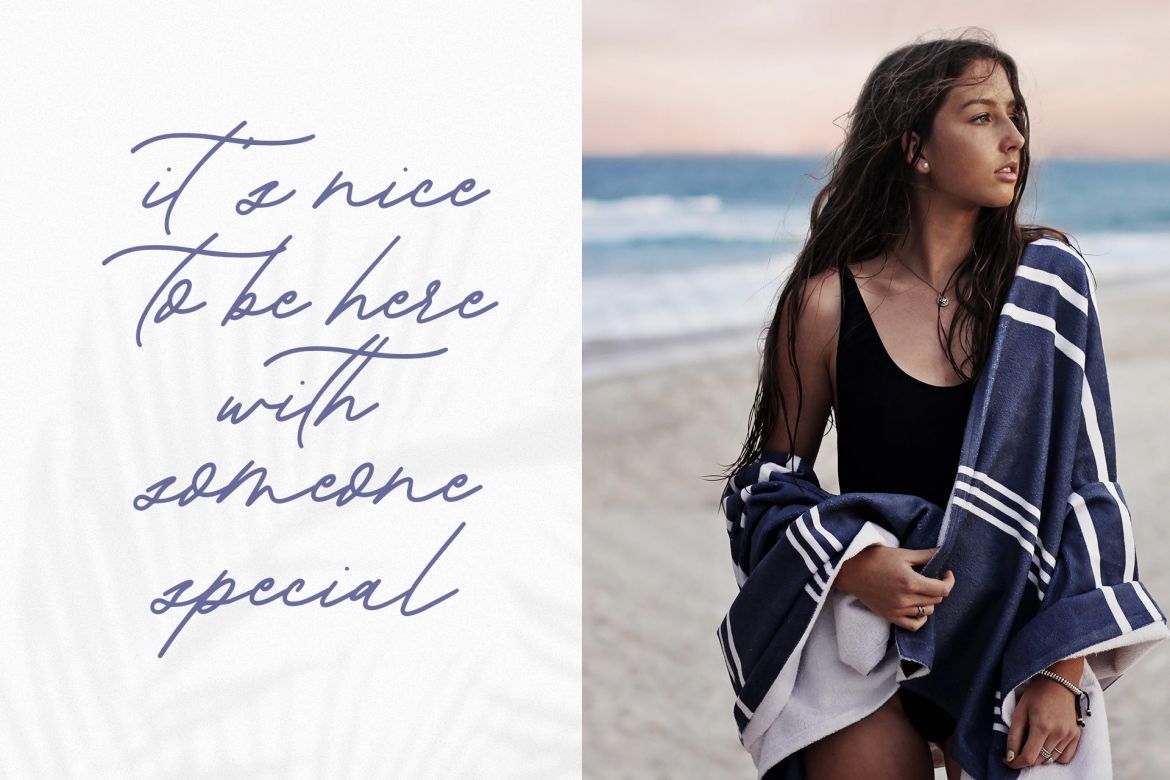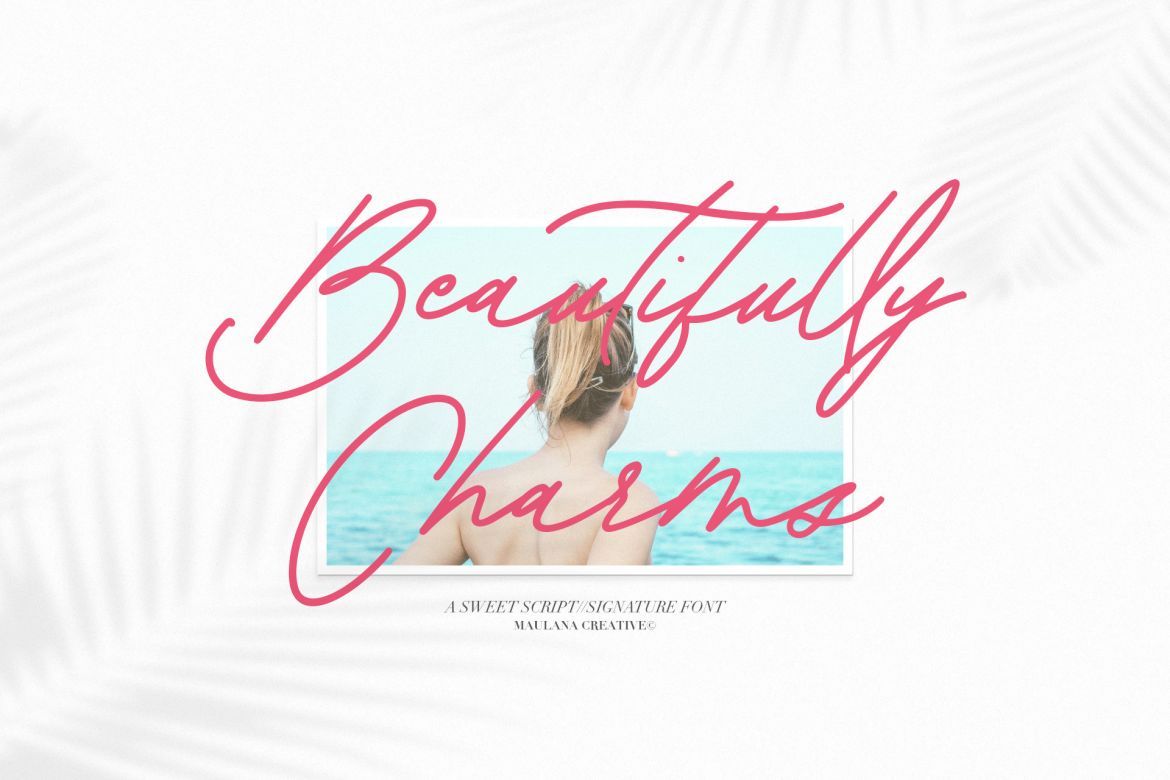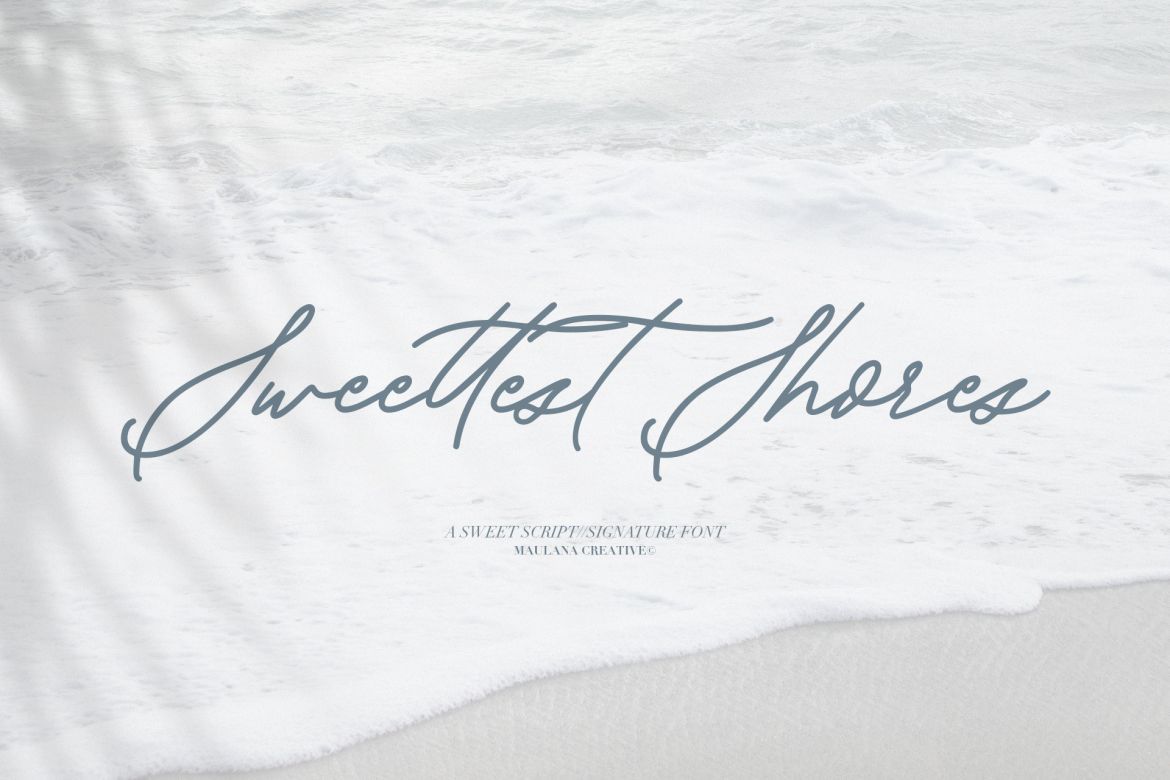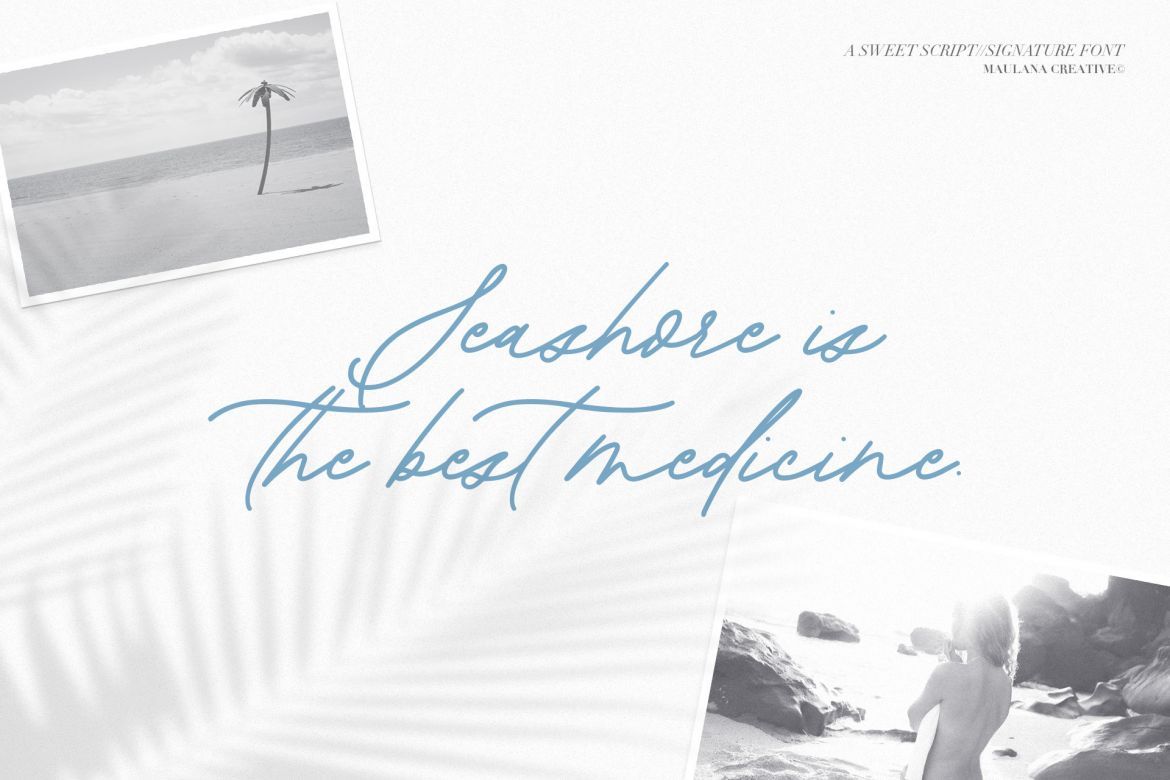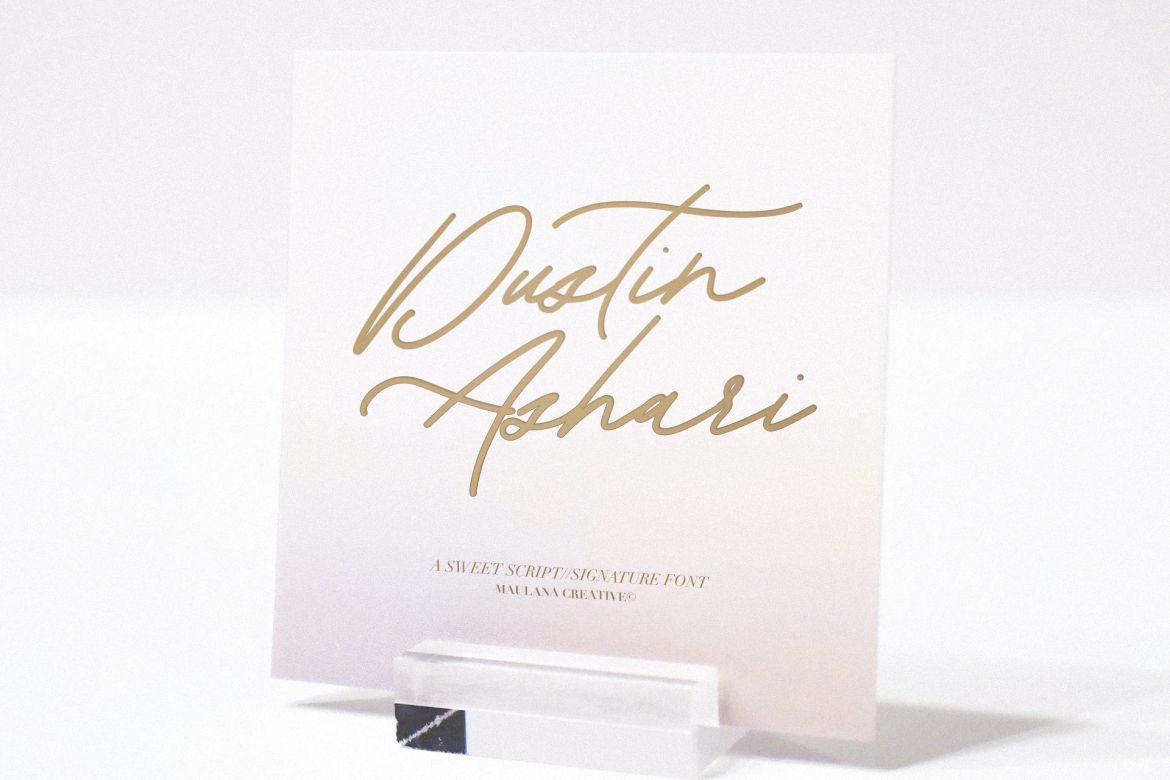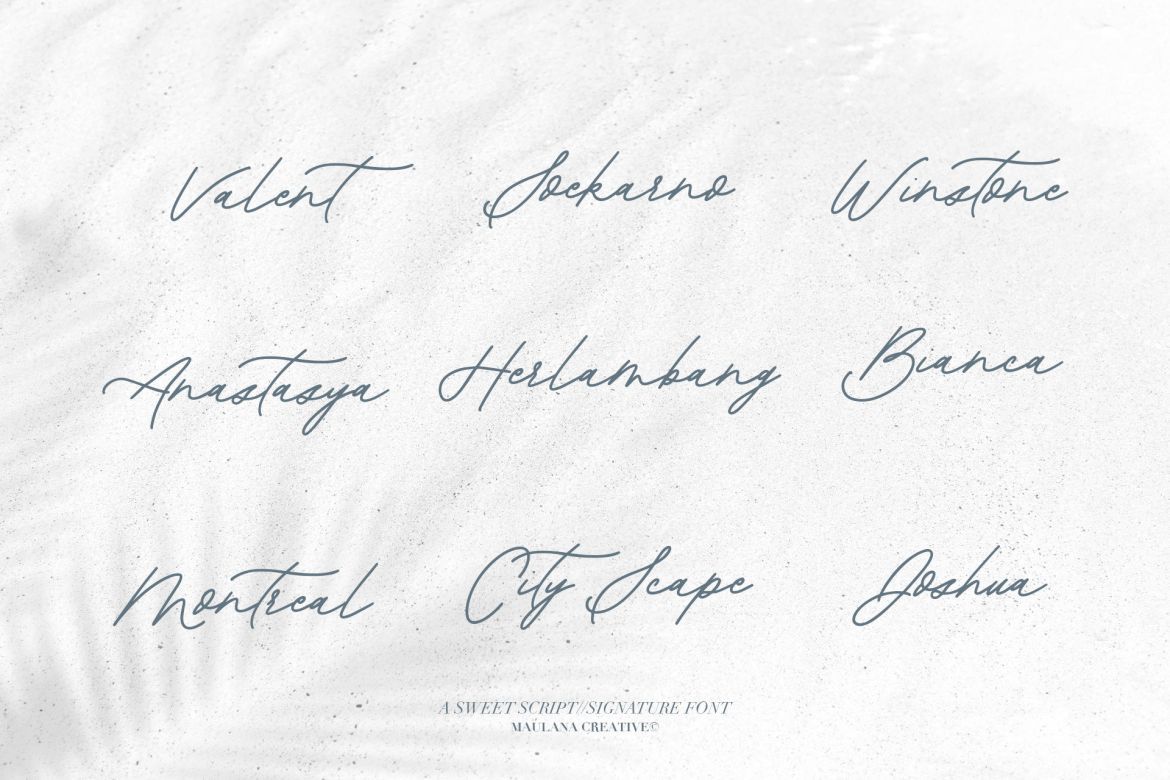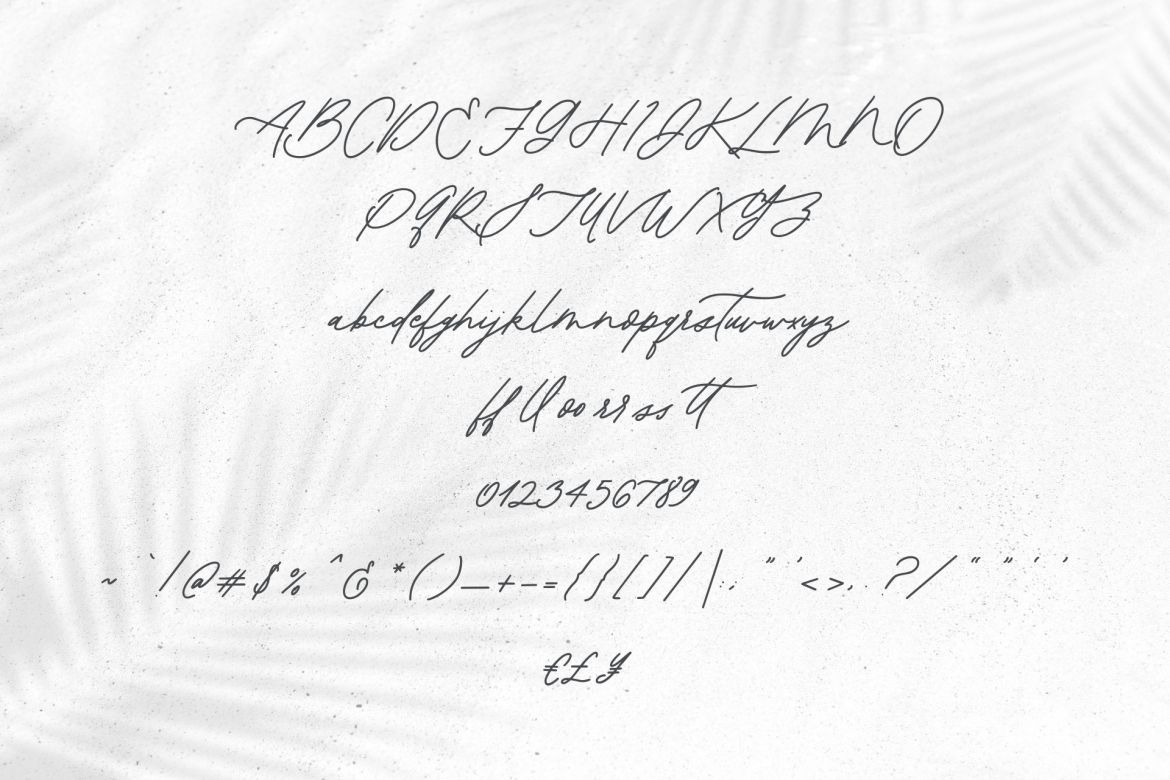
Sweetshore Casual Script Font
Give your designs an authentic handcrafted feel. "Sweetshore" is perfectly suited to signature, stationery, logo, typography quotes, magazine or book cover, website header, clothing, branding, packaging design and more.
Ligature Includes: ff ll oo rr ss tt